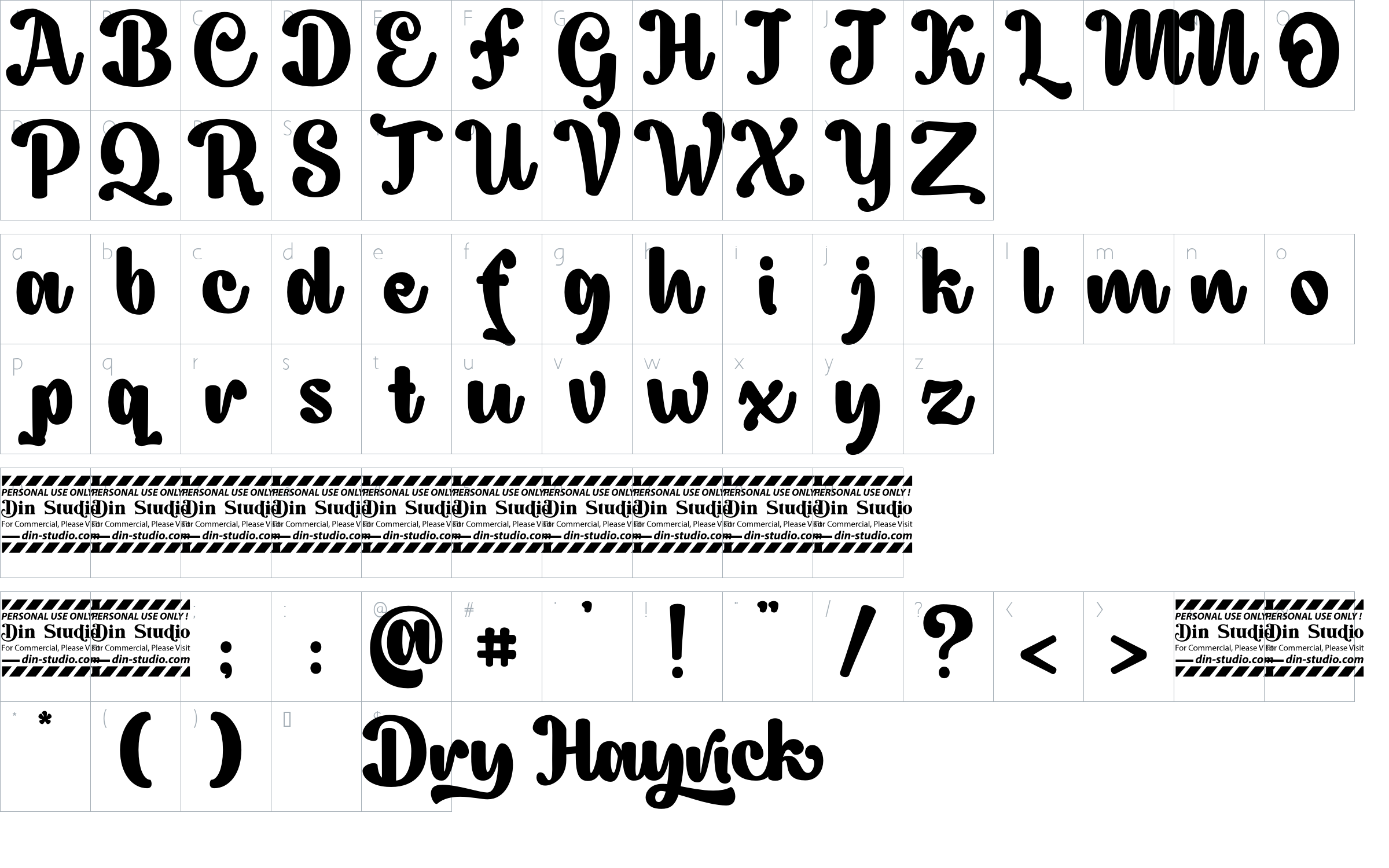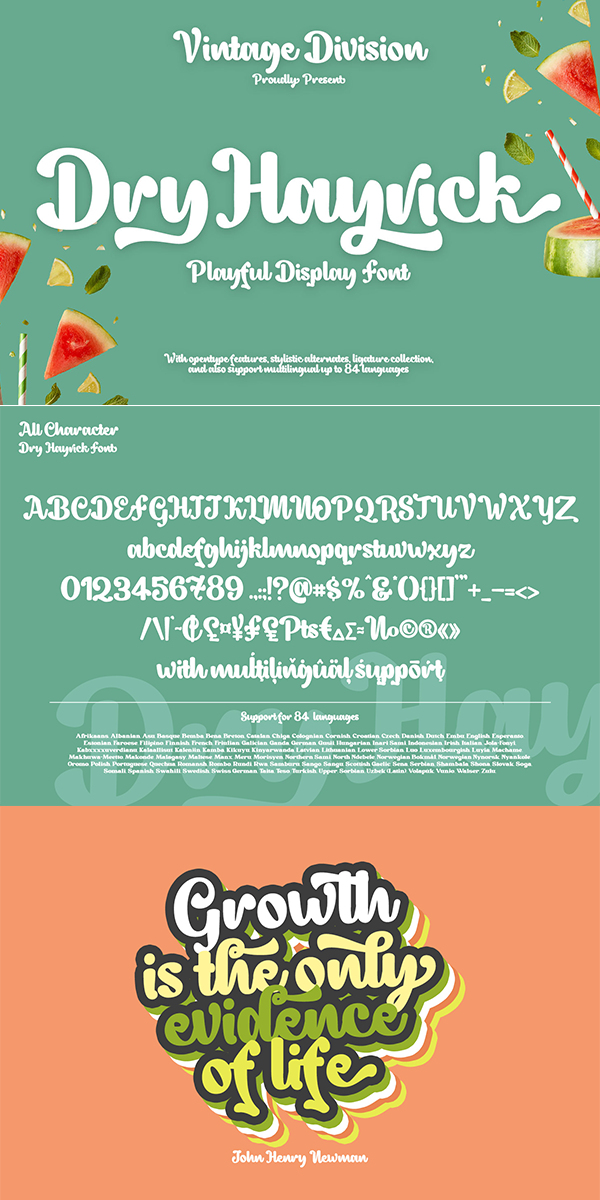
Dry Hayrick Font
About Dry Hayrick
Dry Hayrick – A Display Font
Dry Hayrick is a display font which is created to fit in your designs. This is an excellent choice to add the right amount of playfulness. This custom-made font is specially designed to meet any of your needs and is absolutely the perfect choice for creating your logo, book cover, poster, t-shirt, branding, and advertisement.